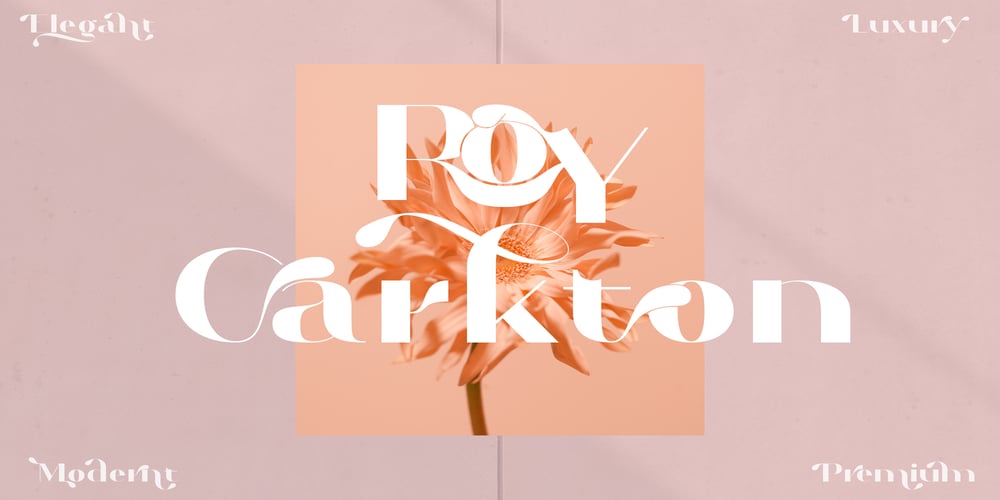
Roy Carkton Font Family was designed by Arif Fadilah and published by Luhop Creative. Roy Carkton contains 2 styles and family package options. Roy Carkton is a luxurious and thick lettered serif font. This font is PUA encoded which means you can access all of the glyphs and swashes with ease! Add it confidently to your favorite creations and let yourself be amazed by the outcome generated. With its striking contrasts and ultra-fine details, along with bold strokes that look luxurious and voluptuous curves, it creates a beautiful and powerful statement for any typographic composition,Features : 2 weight style uppercase & lowercase numbers and punctuation multilingual PUA encoded alternates & ligatures Roy Carkton luxurious serif really helps you create unlimited variations for your creative needs in creating your project titles: such as fashion, magazines, logos, branding, photography, invitations, wedding invitations, quotes, blog headers, posters, advertisements, postcards, books, websites web, etc.